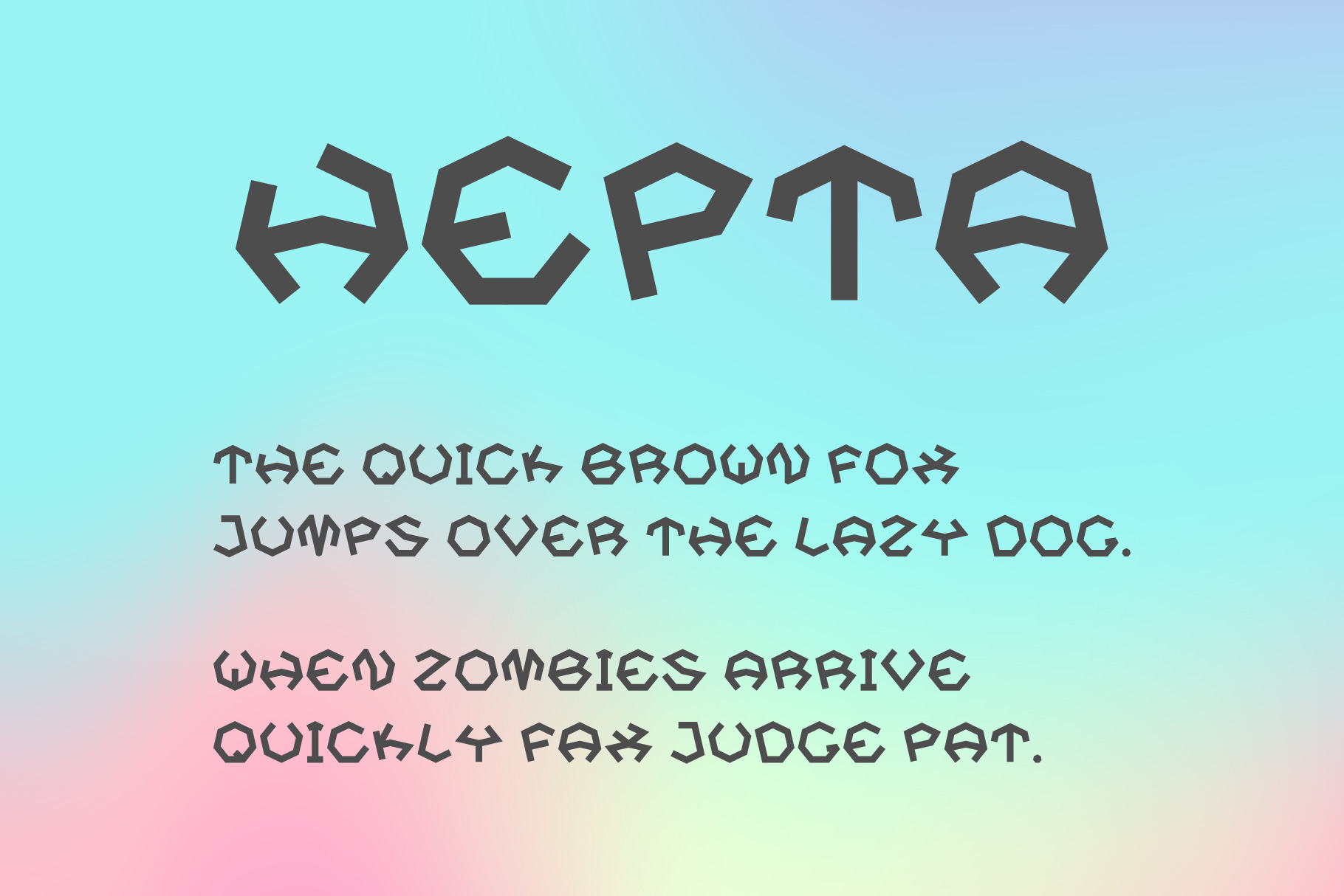
Hepta Typeface. A Heptagonal Font
Hepta Typeface (Heptagonal Geometric Font) is a modern minimalist and clean sans serif font. Perfect for trendy minimalist style design, headers, posters, cards, quotes, stationery, web sites. Web font version (WOFF) is also included.
Contains only:
- Uppercase letters (A .. Z).
- Numbers.
- Three punctuation marks: dot, comma, apostrophe.
Does not contain: lowercase letters, special symbols.